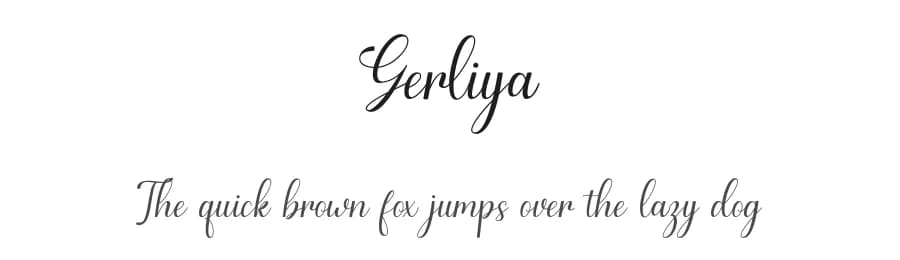
About Gerliya Font
Gerliya Calligraphy Font is a beautiful script font with a contemporary atmosphere and impeccable form, inspired by timeless classic calligraphy. Not too thin and not too thick, balanced, and varied, this font was designed to enhance the beauty of your projects.
Gerliya Font is a script font that shines as a display or heading face. Pair it with a clean sans-serif or serif font for body text β the contrast creates a clear hierarchy while the two styles stay balanced and easy to read.